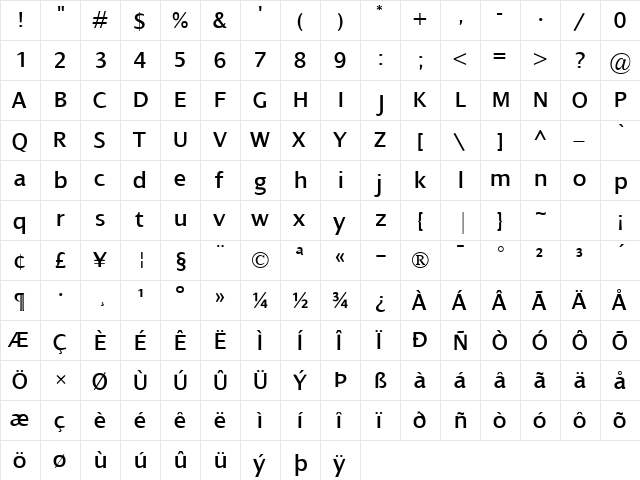
Dialog Regular Font Preview
Dialog Regular
Dialog Regular Font Details
Design Context for Dialog Typeface
Dialog takes a measured approach to typography — its balanced proportions and neutral character make it a reliable workhorse for both digital and print work.